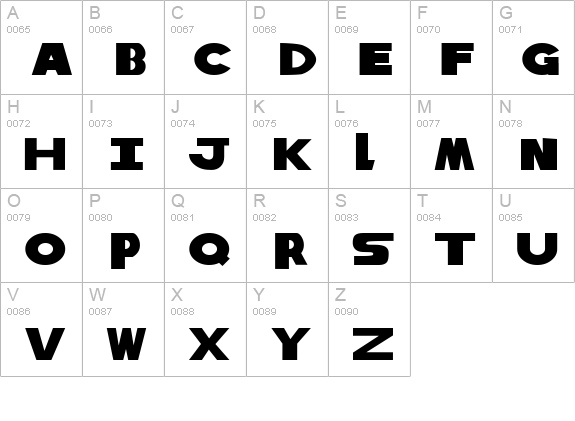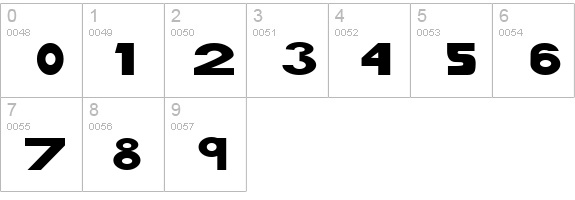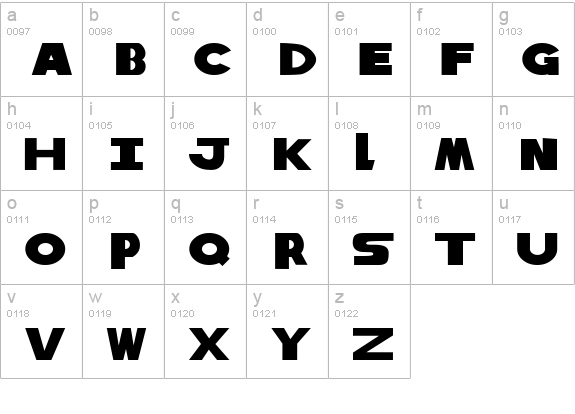
Tribute to Nova Font Details
Introducing Tribute to Nova, a breathtaking font that pays homage to the celestial beauty of the night sky. Reminiscent of twinkling stars and the captivating glow of distant galaxies, this font is a true testament to the wonders of the universe. With its elegant and graceful letterforms, Tribute to Nova captures the essence of cosmic allure, making it the perfect choice for projects that aim to inspire and captivate. Whether used in headlines, logos, or invitations, this font will bring a touch of celestial magic to any design. What sets Tribute to Nova apart is its unique combination of sophistication and accessibility. Its meticulously crafted letterforms exude an air of refinement, while still remaining approachable and versatile. This makes it suitable for a wide range of applications, from high-end branding to creative print materials. But the best part? Tribute to Nova is available for free! Yes, you read that right. This stunning font can be freely downloaded at FontsMarket.com, allowing designers and creatives of all backgrounds to access and incorporate its celestial beauty into their work without any cost. So why wait? Download Tribute to Nova today and let its celestial elegance elevate your designs to new heights. Embrace the wonders of the universe and set your creativity free with this remarkable font.